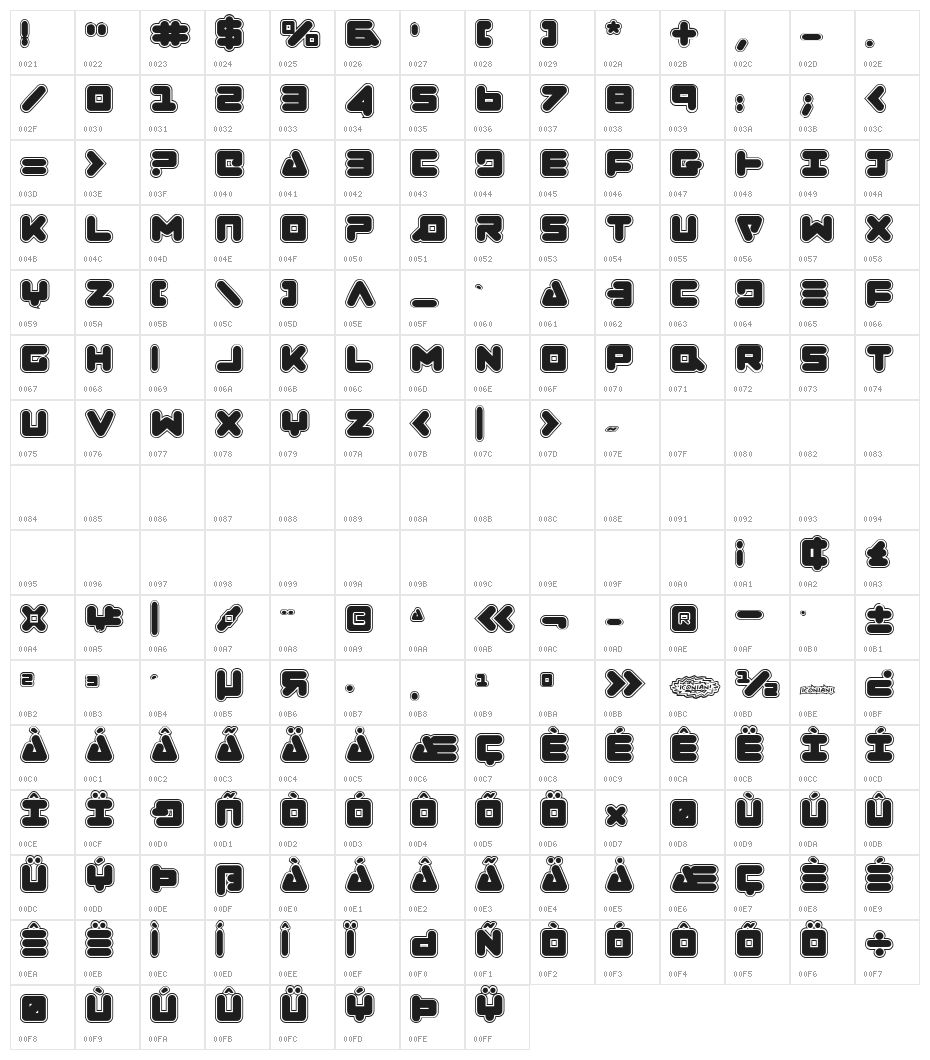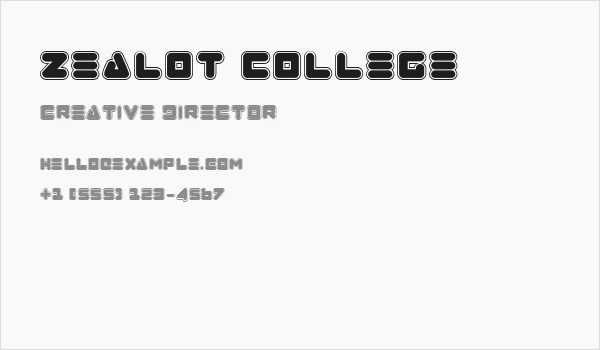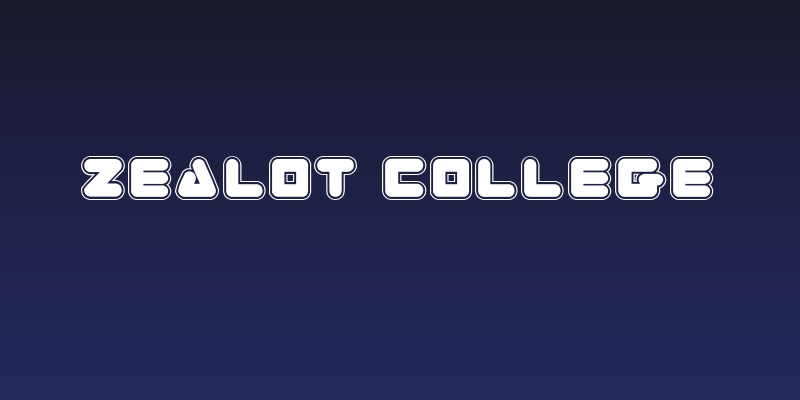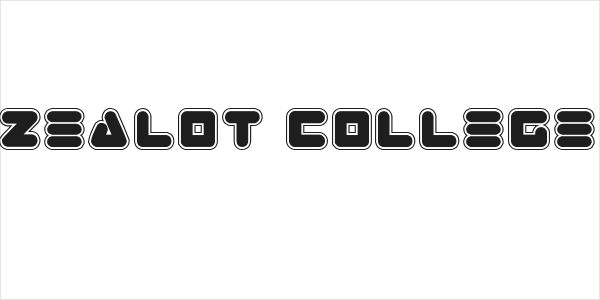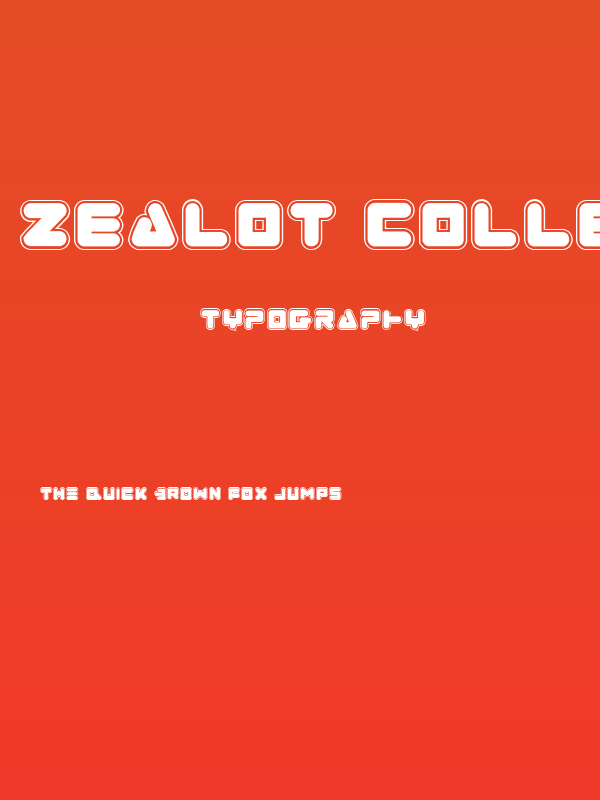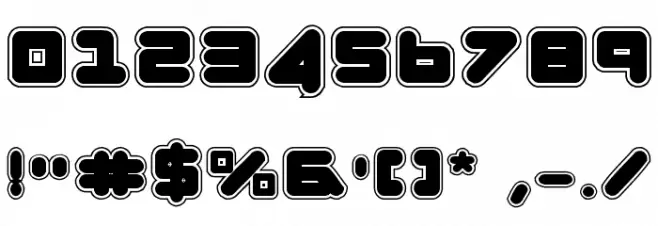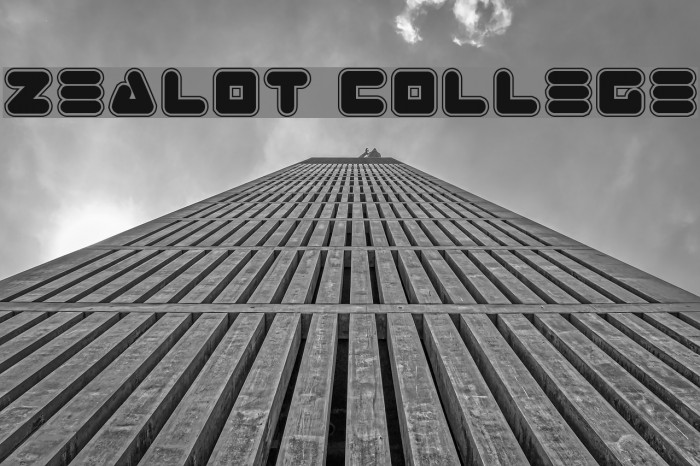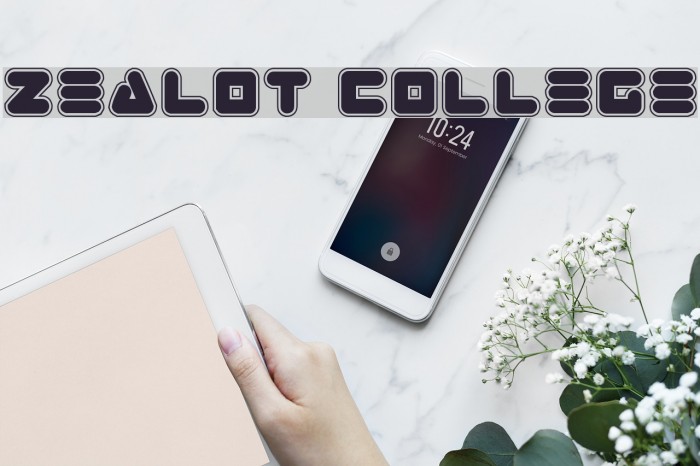
Zealot College Font
Zealot College Description
This font features a bold, geometric design with a distinct outline that gives each character a three-dimensional appearance. The letters are constructed with thick, uniform strokes and rounded corners, creating a futuristic and playful aesthetic. The uppercase and lowercase letters share a similar structure, maintaining consistency throughout the typeface. The numbers and special characters are designed to match the bold and outlined style, ensuring a cohesive look across all elements. This font's unique design makes it stand out, ideal for projects that require a modern and eye-catching typeface.
| Use Case | Logos, Headlines, Posters |
| Proposed Projects | Ideal for branding, posters, video game graphics, and any project needing a modern, standout font. |